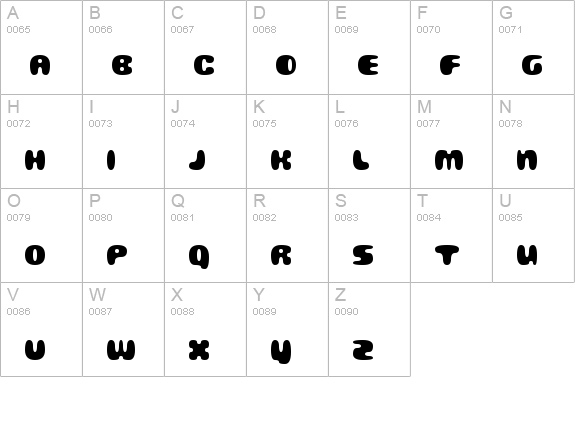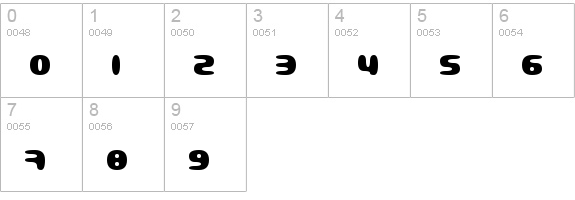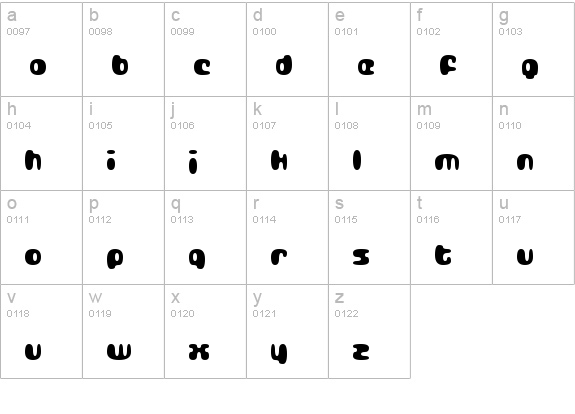
Gubblebum Black is a maximum-weight, dramatic variant in the Gubblebum typeface family \xE2\x80\x94 well suited to maximum-impact headlines, posters, and packaging.
Introducing Gubblebum Black font, a bold and eye-catching typeface that commands attention with its distinctive design. This versatile font is perfect for making a statement in any project, from branding to advertising to social media graphics. With its sleek lines and contemporary feel, Gubblebum Black font adds a touch of modern elegance to any design. And the best part? Gubblebum Black font is completely free to download at FontsMarket.com. That's right, you can enhance your projects with this stunning font without breaking the bank. So why wait? Download Gubblebum Black font today and take your designs to the next level!